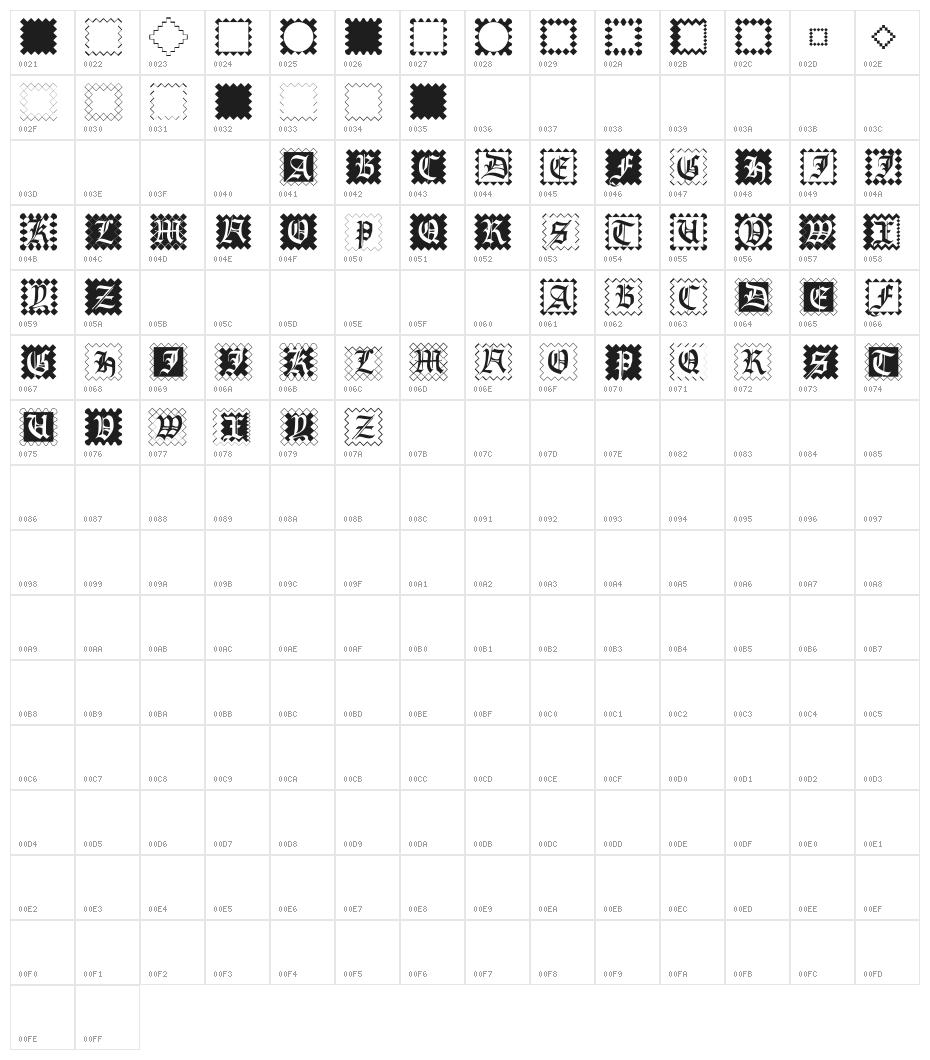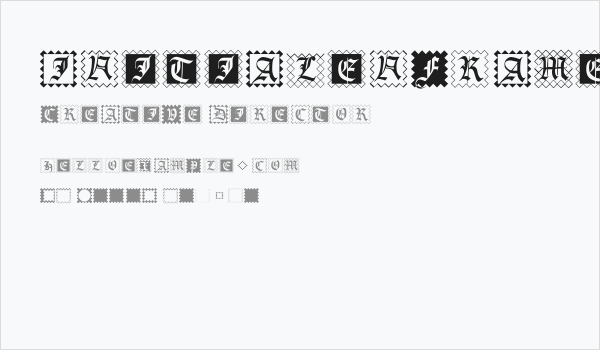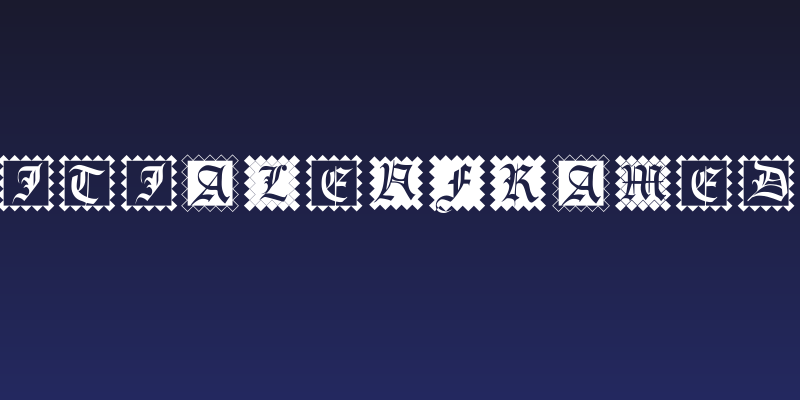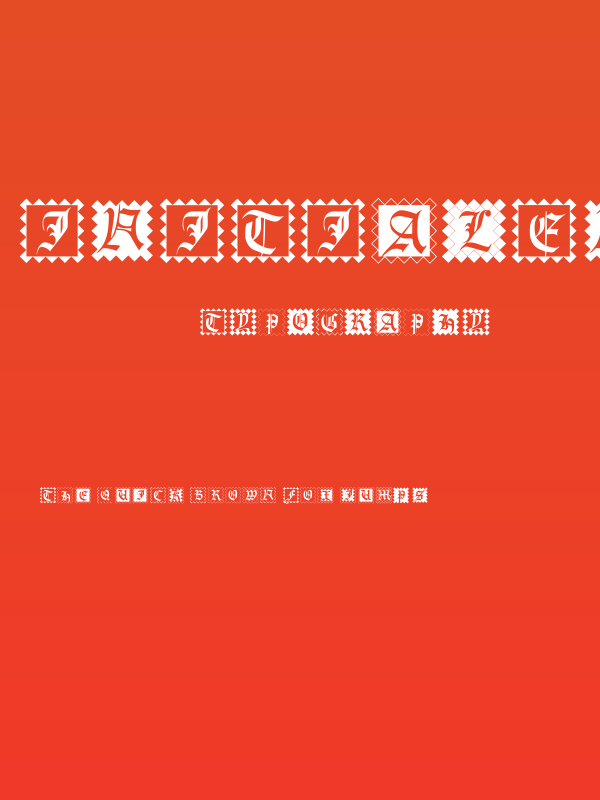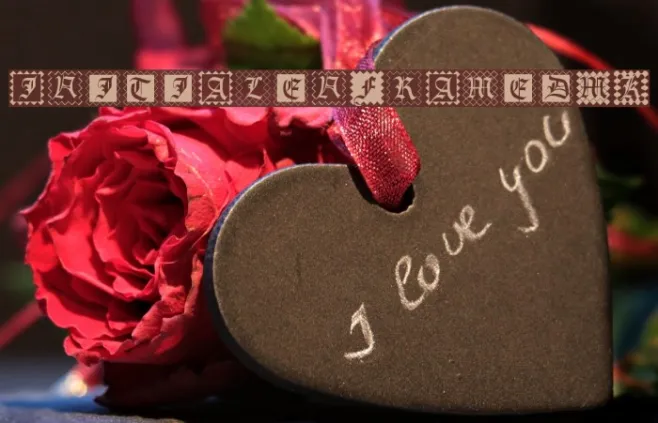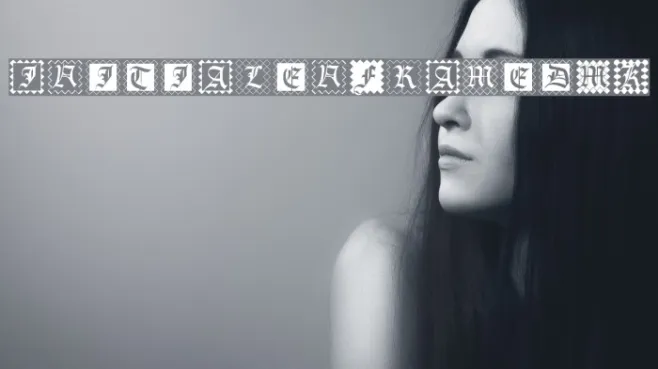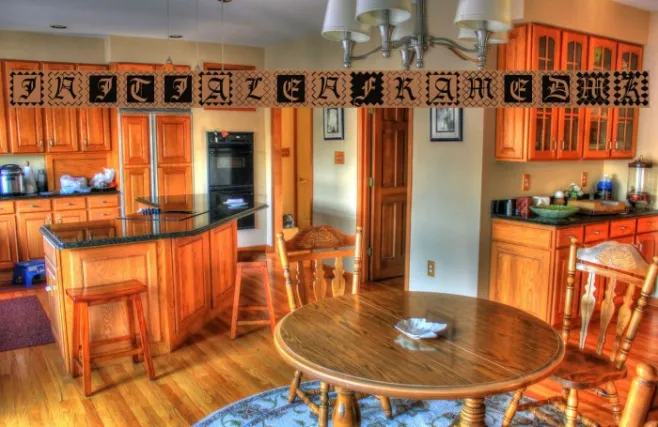
InitialenFramedMK Font
InitialenFramedMK Description
This font features a highly decorative and ornate style, with each letter enclosed in a unique, intricate frame. The letters themselves are reminiscent of traditional blackletter or Gothic script, characterized by sharp angles and dramatic flourishes. The frames add an additional layer of complexity, with patterns that vary from zigzags to scalloped edges, enhancing the font's visual impact. This combination of bold letterforms and elaborate borders creates a striking appearance that commands attention. The font is best suited for projects that require a historical or vintage aesthetic, such as invitations, certificates, or themed event materials.
| Use Case | Headlines, Logos, Decorative text |
| Proposed Projects | Ideal for vintage-themed designs, invitations, certificates, and decorative headings. |